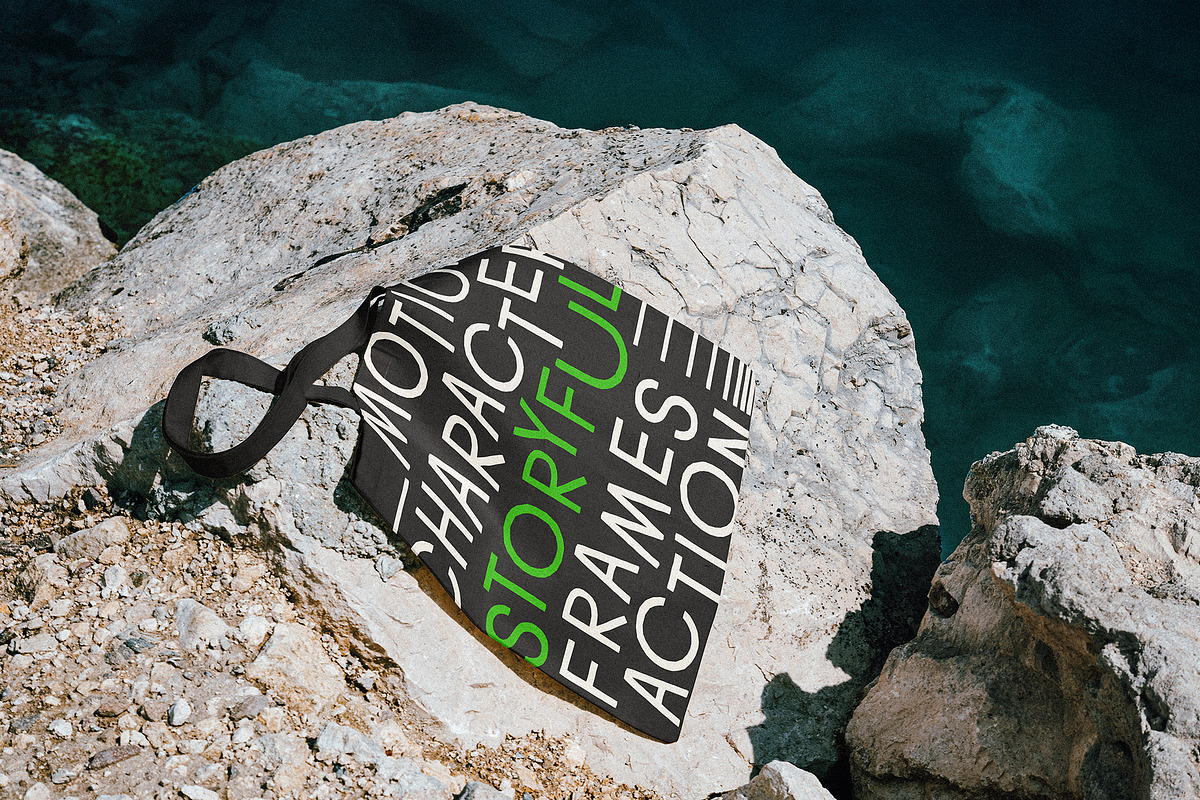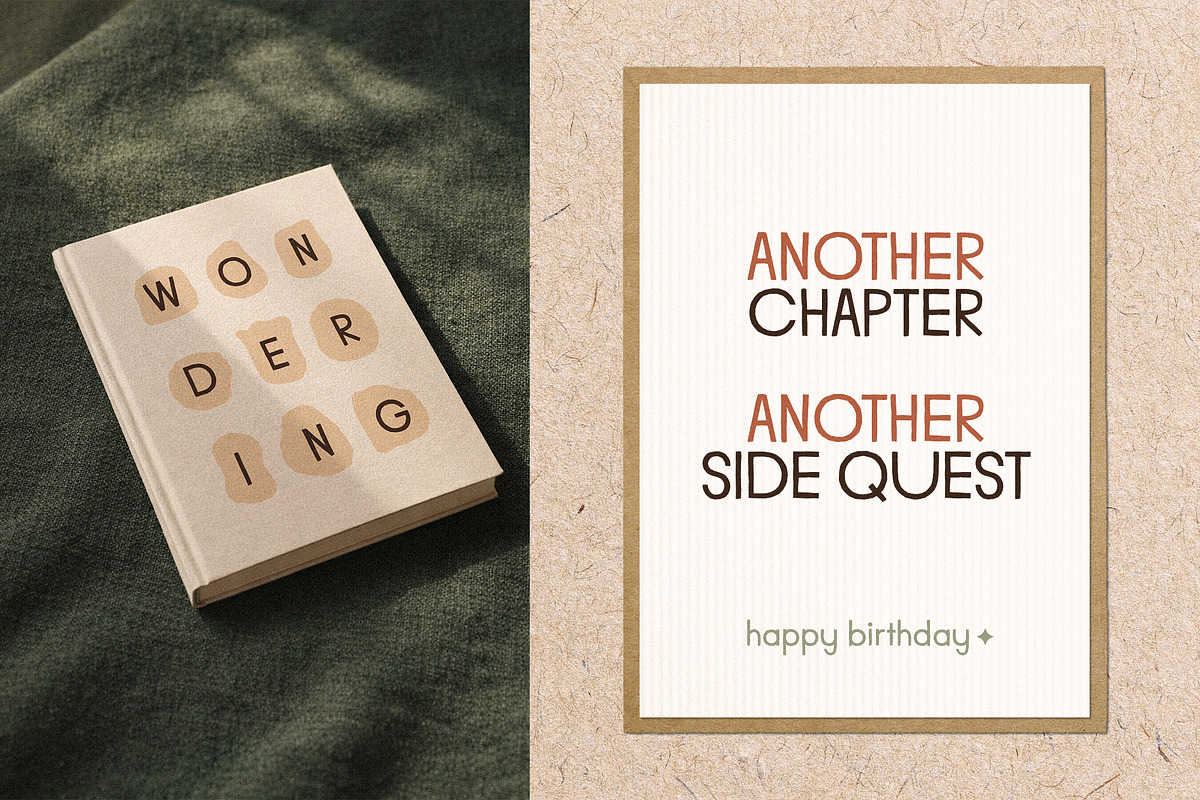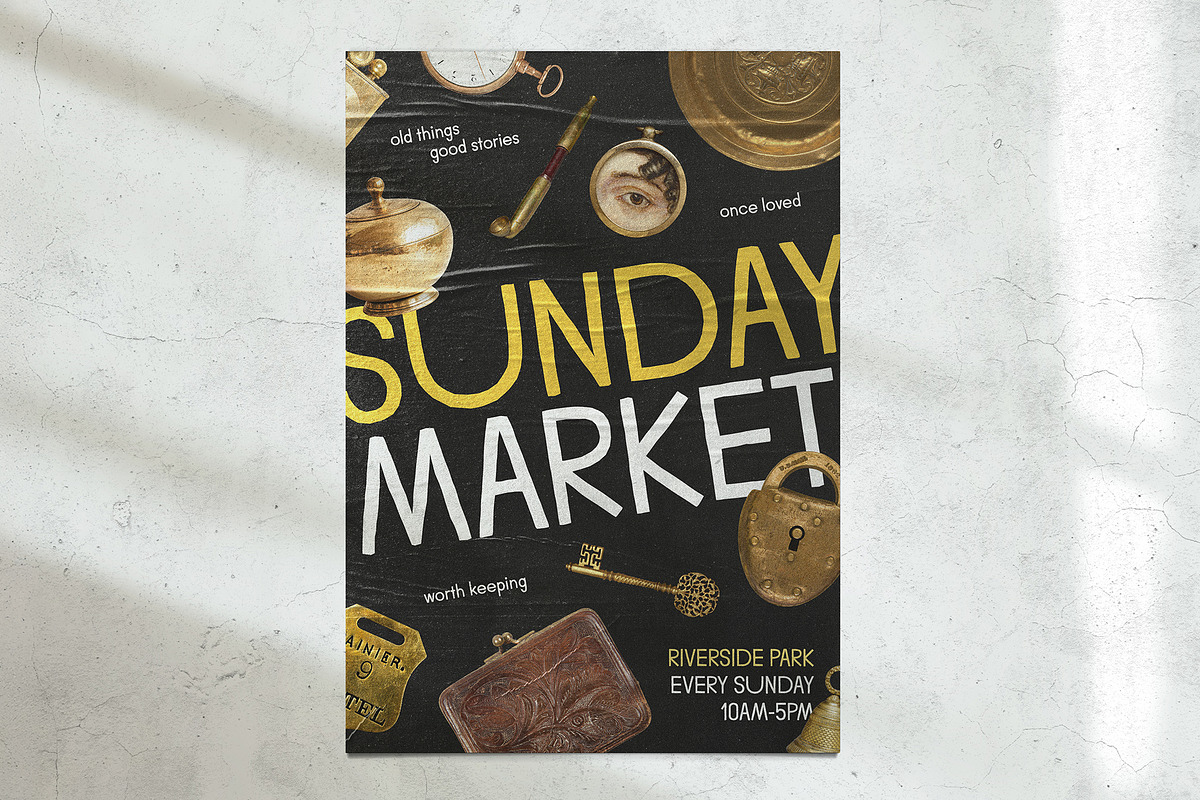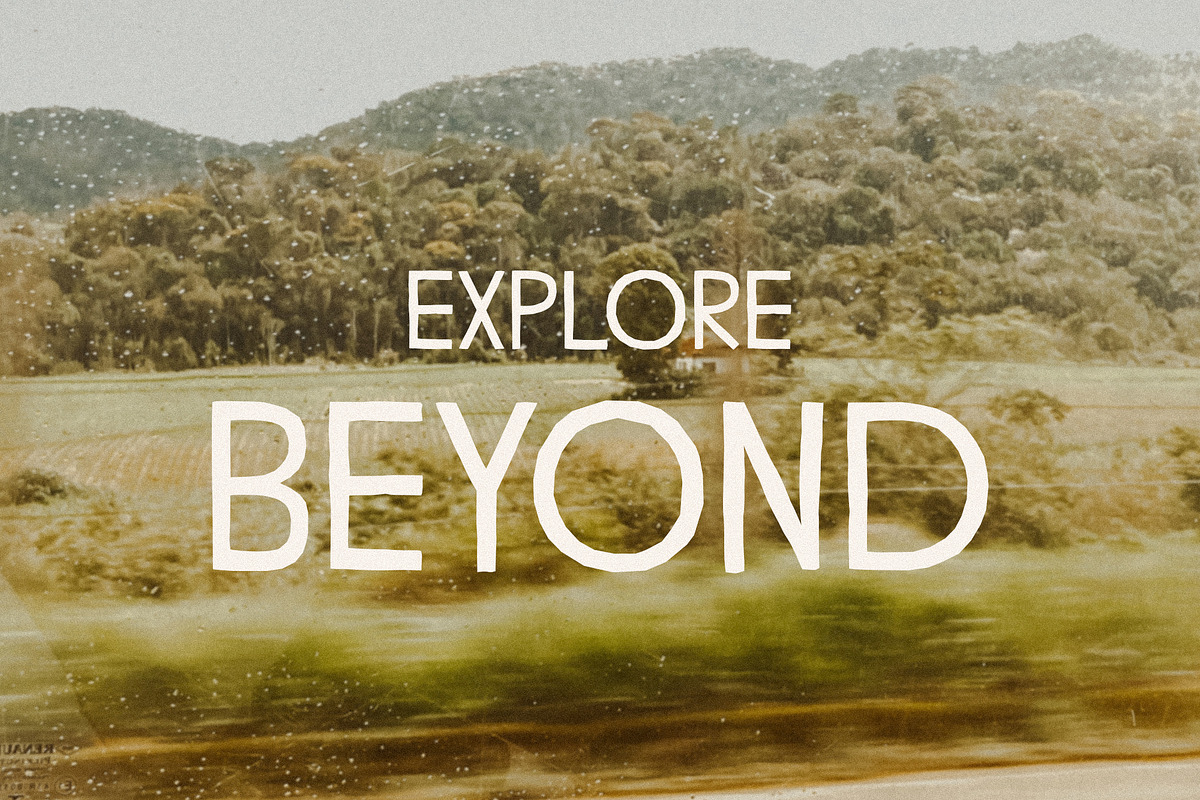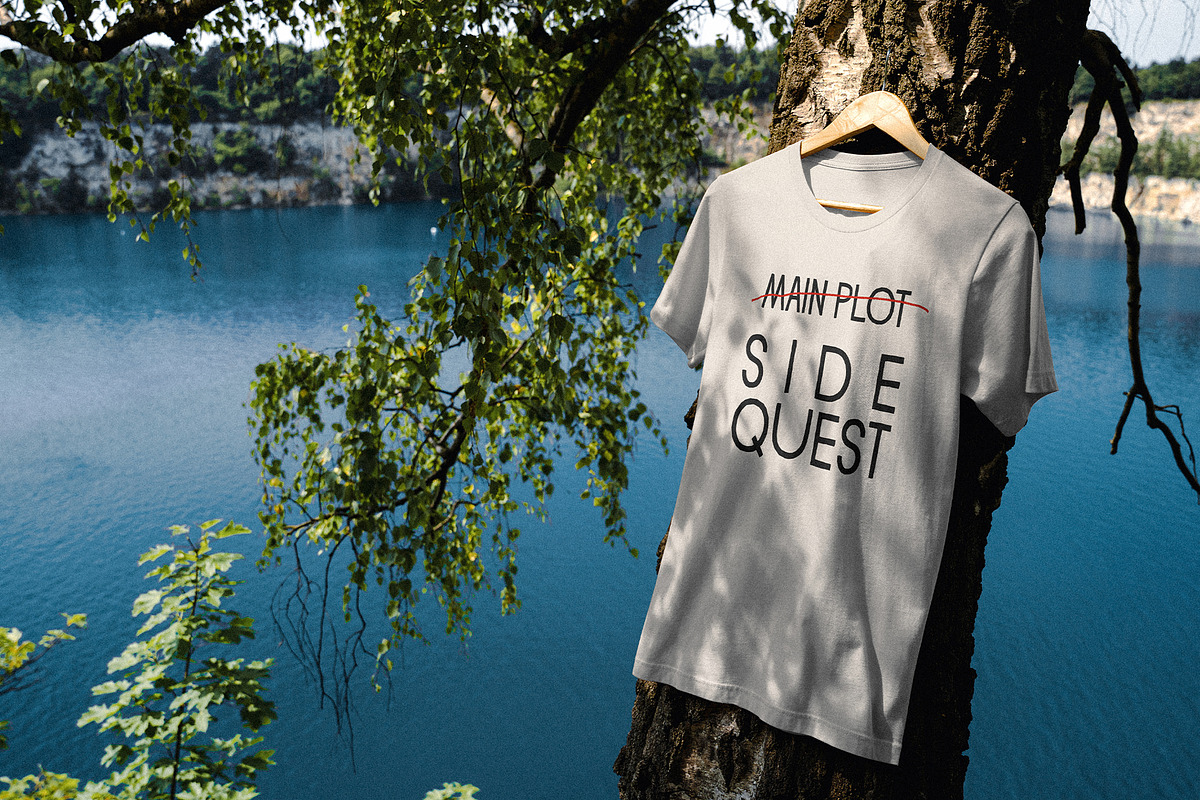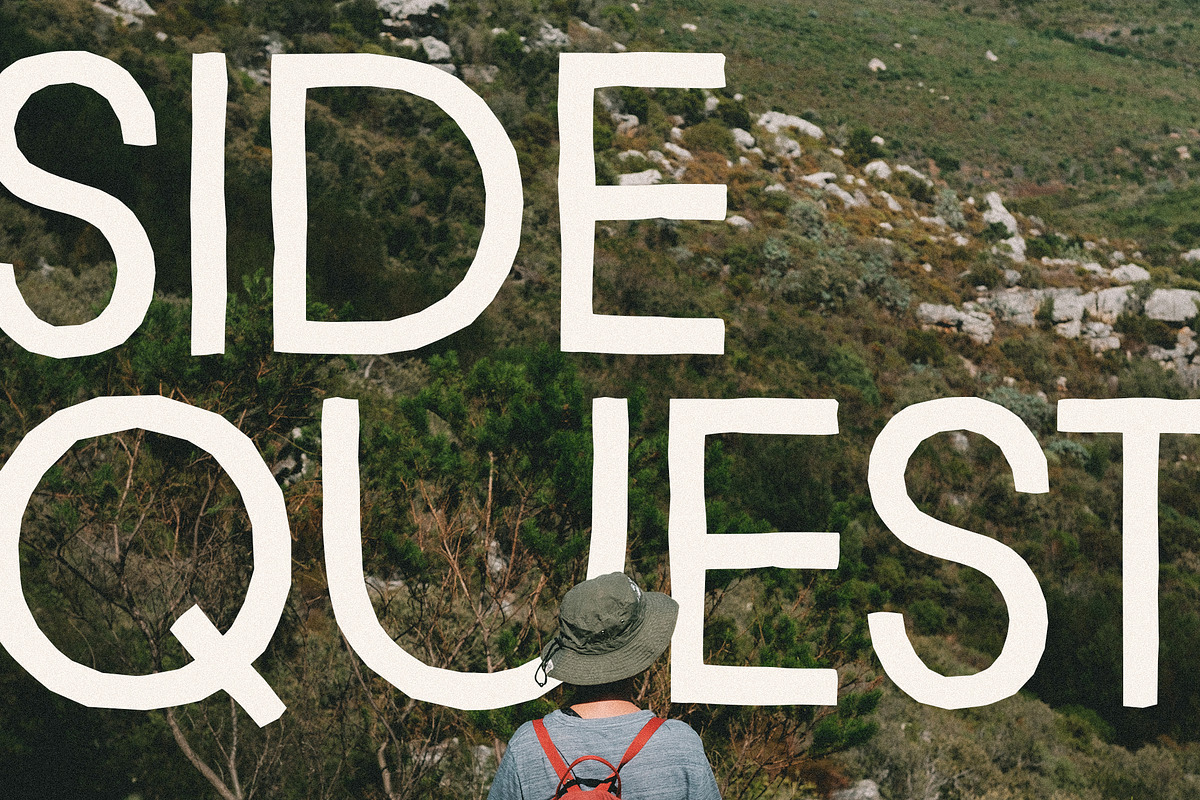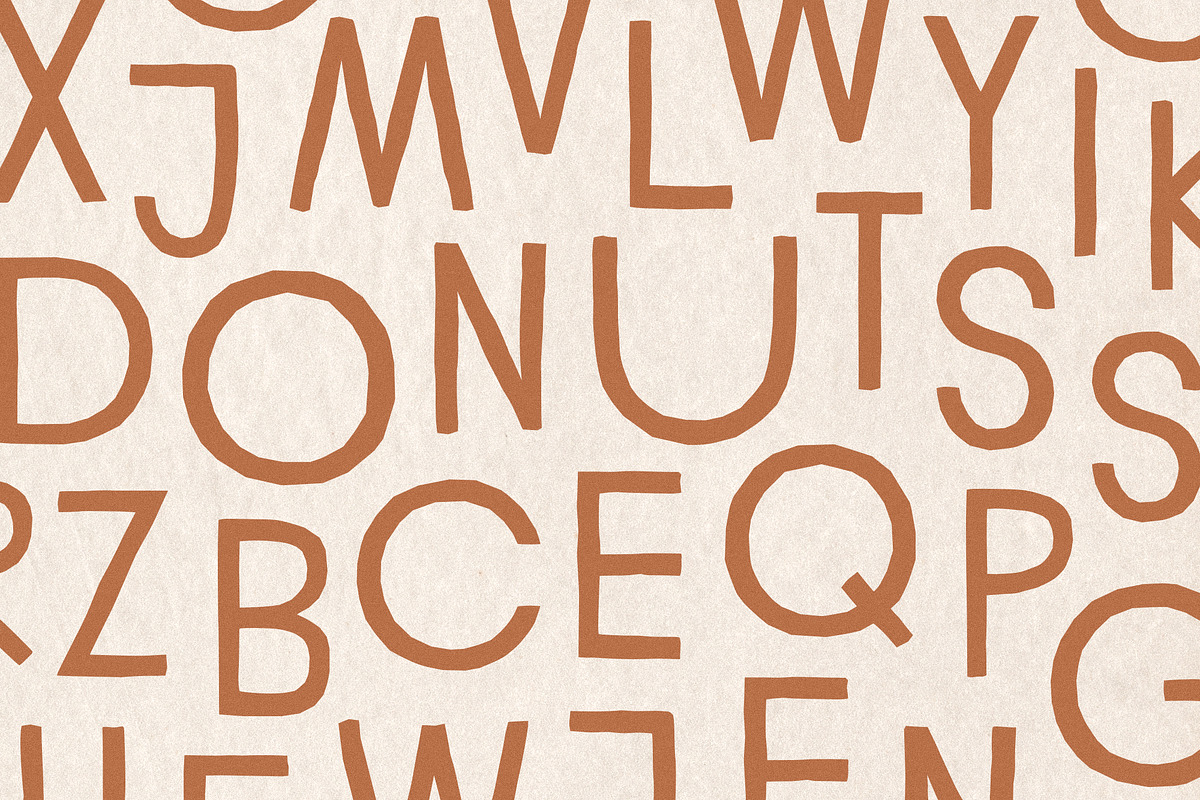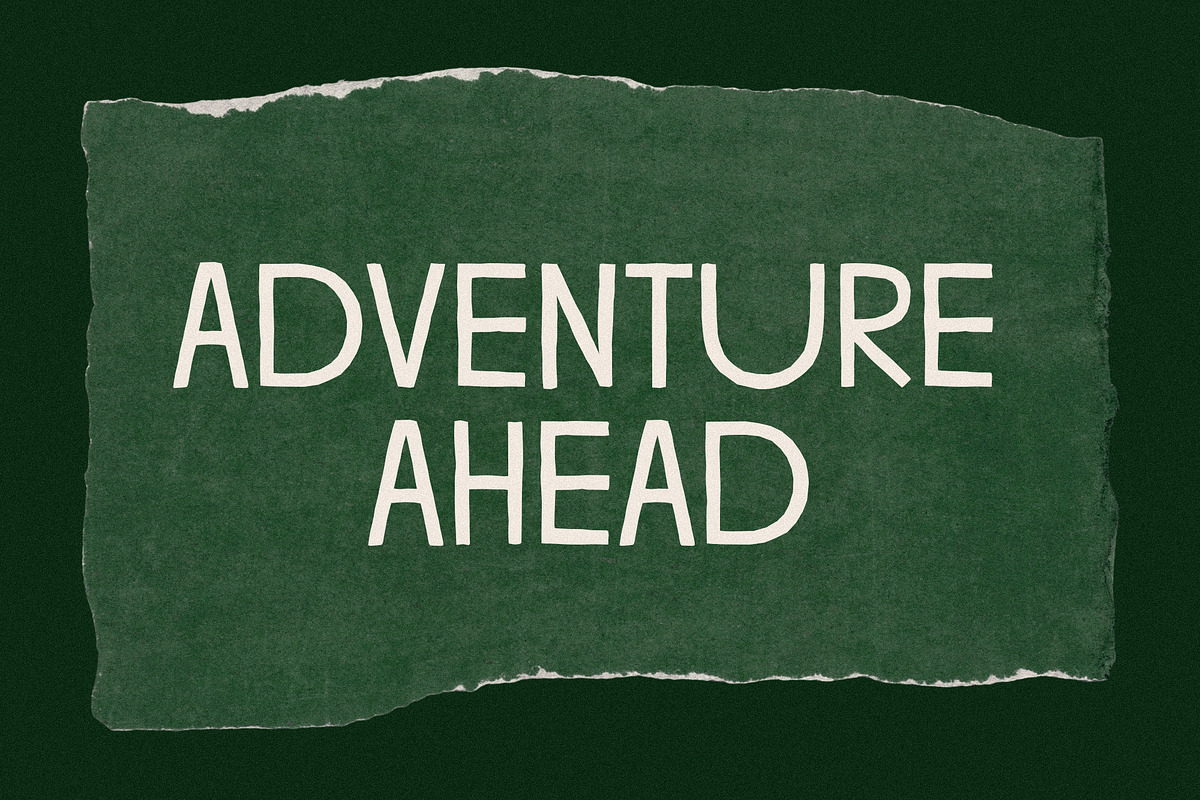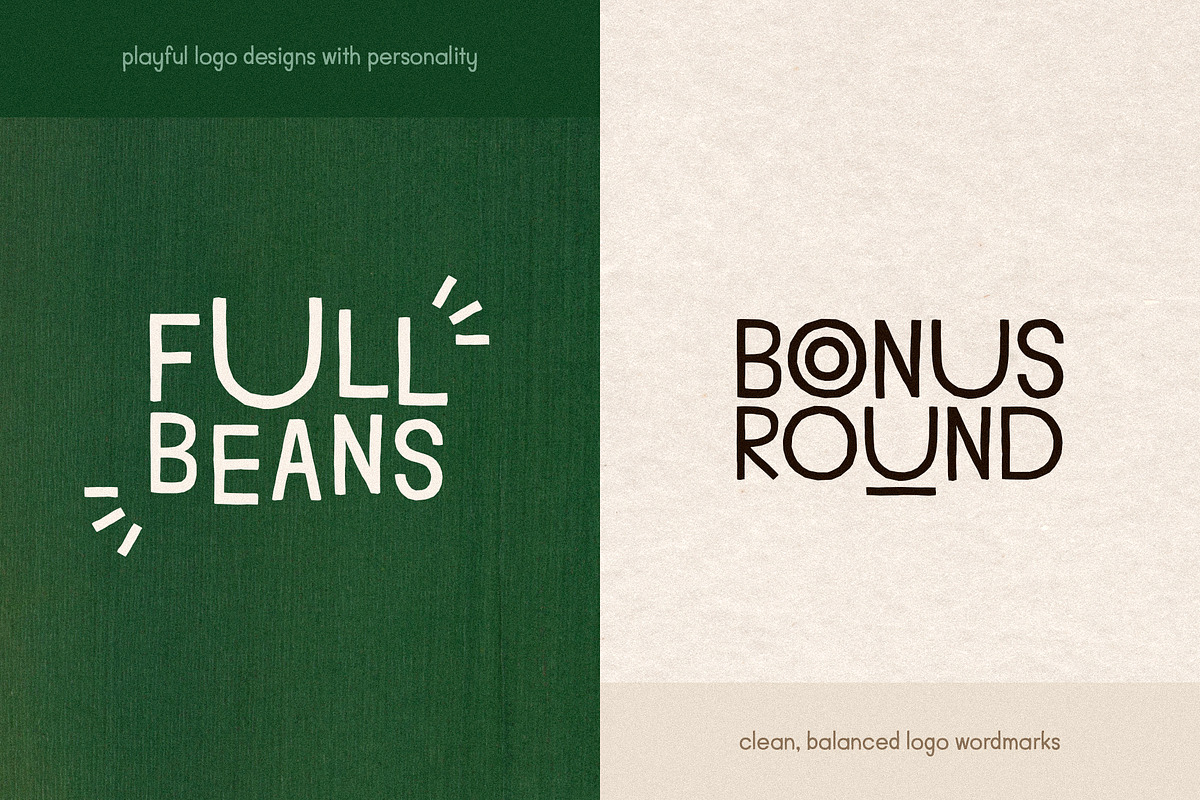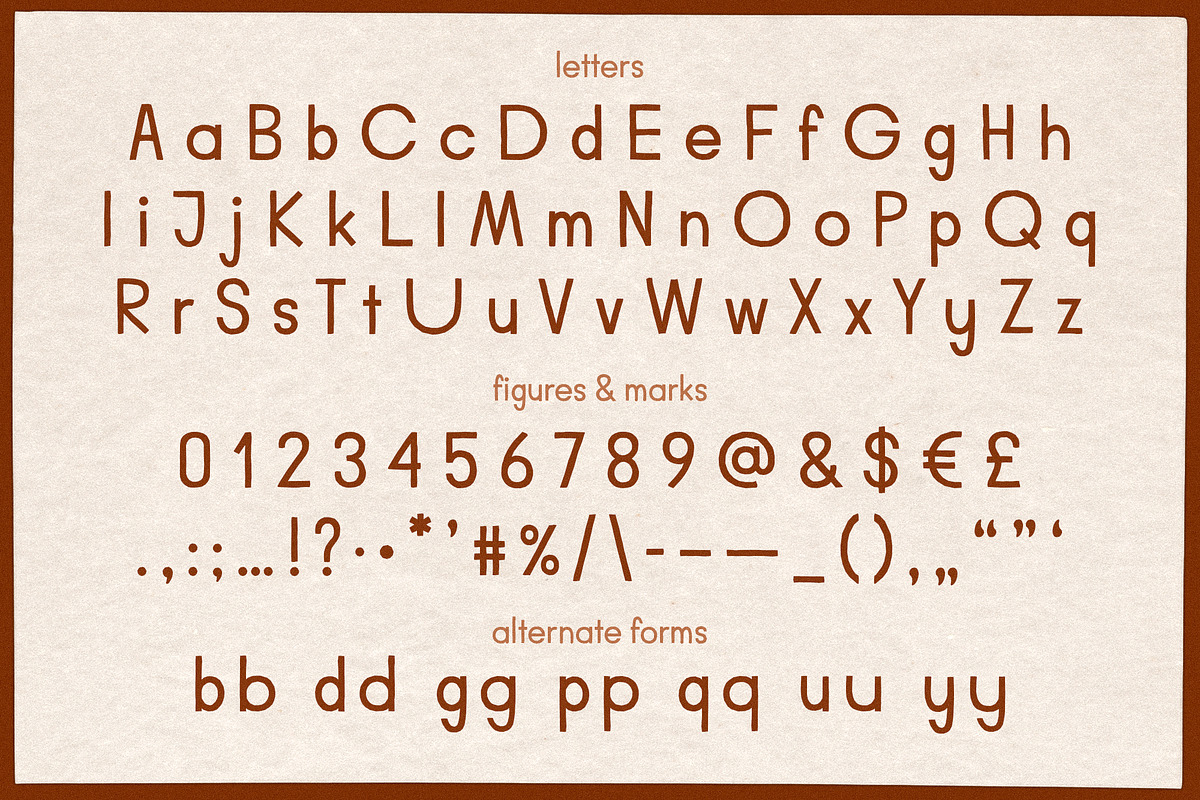
Side Quest - A Playful Display Font
Side Quest is a playful, characterful display font made for wandering off the main plot. It’s friendly but a little weird, soft but confident - perfect for projects that feel personal, curious, and story-driven.
Designed with animation, games, books, posters, and merch in mind, Side Quest shines in headlines, titles, packaging, greeting cards, and anything that needs a human touch with a hint of adventure. Its slightly irregular shapes and alternate letterforms give it a lively, handcrafted feel without sacrificing readability.
Think: cozy indie games, book covers, festival posters, zines, journals, birthday cards, logos with personality, and joyful side projects that matter just as much as the “main” work.
Uppercase & lowercase letters
Numerals, symbols, and punctuation
Alternate letterforms for added playfulness
Works beautifully for headlines, short text, and expressive branding
Language Support
Side Quest currently supports Basic Latin characters only (A–Z, a–z), along with numerals, standard symbols, and basic punctuation. It does not include accented characters or extended language support at this time.